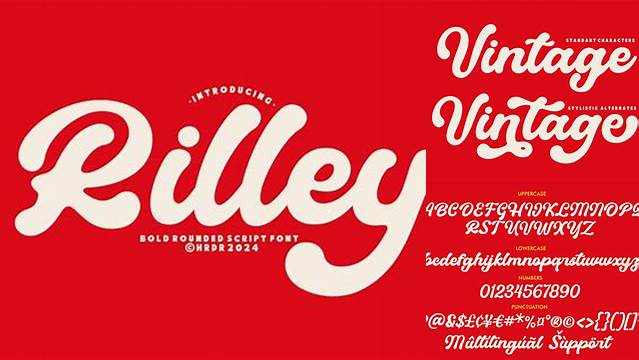
Hey guys! Are you on the hunt for a font that's both bold and friendly? Something that screams modern yet feels approachable? Well, buckle up because I'm about to introduce you to your next design obsession: Rilley, the rounded bold font that's taking the design world by storm – and the best part? It's free to download!
What Makes Rilley So Special?
In the vast ocean of fonts, Rilley manages to stand out, and for good reason. This isn't just another bold font; it's a carefully crafted typeface that blends strength with softness. The rounded terminals give it a warm, inviting feel, making it perfect for a wide range of projects. Let’s dive into what makes Rilley truly shine. When you’re choosing a font, especially a bold one, you need something that commands attention without being abrasive. Rilley nails this balance perfectly. The rounded edges soften the impact of the bold weight, creating a harmonious look that’s both eye-catching and easy on the eyes. Think about logos, headings, and even body text – Rilley can handle it all with grace. One of the key things designers look for is versatility, and Rilley delivers in spades. Whether you’re working on a sleek, modern website, a playful children’s book, or a professional marketing campaign, this font adapts beautifully. Its bold presence ensures your message gets across, while the rounded edges keep things friendly and approachable. It's like having a Swiss Army knife for your typography toolbox! Now, let’s talk about readability. What good is a bold font if it strains the reader's eyes? Rilley’s thoughtful design ensures excellent readability, even at smaller sizes. The letterforms are clear and distinct, making it a great choice for everything from website body text to print materials. This is a huge win, especially when you’re dealing with projects that require a lot of text. And did I mention it's free? Finding a high-quality, versatile font that doesn’t break the bank is like finding a unicorn. Rilley offers professional-grade aesthetics without the hefty price tag, making it an invaluable resource for designers of all levels. Whether you’re a seasoned pro or just starting out, having access to a font like Rilley can make a world of difference in your projects.
Key Features of Rilley
- Rounded Terminals: The soft, rounded edges give Rilley a friendly and approachable feel.
- Bold Weight: Its strong presence makes it perfect for headlines, logos, and branding materials.
- Versatile Design: Suitable for a wide range of projects, from web design to print.
- Excellent Readability: Clear letterforms ensure readability at various sizes.
Where Can You Use Rilley?
The possibilities are endless! Seriously, guys, this font is a chameleon. Here are just a few ideas to get your creative juices flowing. Think about branding – a bold font like Rilley is perfect for creating a strong, memorable logo. The rounded edges add a touch of warmth, making your brand feel more approachable. Imagine seeing Rilley on a coffee shop sign or a tech startup’s website – it just works! For website design, Rilley is a dream come true. Use it for headings to grab attention or as body text for a clean, modern look. Its excellent readability ensures your message is clear and engaging. Plus, the bold weight makes navigation elements pop, guiding users through your site effortlessly. If you’re into print design, Rilley won’t disappoint. From posters and flyers to brochures and business cards, this font adds a touch of sophistication to any project. The rounded terminals make it feel less formal, perfect for designs that need a friendly, inviting vibe. Book covers are another fantastic application. A bold font on a book cover instantly draws the reader’s eye, and Rilley’s unique style sets your design apart from the crowd. Whether it’s a fiction novel or a non-fiction guide, Rilley can help you create a cover that’s both striking and readable. Let’s not forget social media graphics. In a world of endless scrolling, you need a font that stops people in their tracks. Rilley’s bold weight ensures your message gets noticed, while the rounded edges keep your posts looking fresh and modern. Use it for quotes, announcements, or promotional graphics – Rilley will make your content shine. And for those of you working on presentations, Rilley is a lifesaver. Use it for titles and headings to keep your slides organized and engaging. Its clean, readable design ensures your audience stays focused on your message, not struggling to decipher your text. The key takeaway here is versatility. Rilley isn’t just a one-trick pony; it’s a workhorse that can handle a wide variety of design tasks. Its unique blend of boldness and approachability makes it a valuable asset in any designer’s toolkit.
Examples of Rilley in Action
- Logos: Imagine a tech startup with a sleek, modern logo using Rilley. The bold weight conveys confidence, while the rounded edges add a touch of approachability.
- Websites: Picture a blog with Rilley headings, drawing readers in with their friendly yet impactful presence. The clear letterforms make the content easy to read and enjoy.
- Posters: Envision a concert poster with Rilley splashed across it, grabbing attention with its strong boldness and unique rounded style.
- Book Covers: Think of a fiction novel with a Rilley title, instantly conveying a sense of modernity and intrigue.
- Social Media Graphics: See a quote graphic with Rilley text, making the message pop and stand out in the busy social media landscape.
Tips for Using Rilley in Your Designs
So, you’ve got Rilley installed and you’re itching to use it. Awesome! Here are a few tips to help you make the most of this fantastic font. First off, think about contrast. While Rilley is bold and eye-catching, it works best when paired with a more understated font for body text. A clean sans-serif or a classic serif can create a beautiful balance, allowing Rilley to shine in headings and titles without overwhelming the design. When using Rilley for logos, consider the overall message you want to convey. The rounded edges give it a friendly, approachable feel, so it’s perfect for brands that want to come across as warm and inviting. However, the bold weight also lends a sense of confidence and strength, making it suitable for a wide range of industries. In web design, Rilley is a star for headings and navigation elements. Its readability ensures that users can easily find their way around your site, while its distinctive style adds a touch of personality. Just be mindful of load times – using too many bold fonts can sometimes slow things down, so optimize your font usage for the best performance. For print projects, Rilley is a versatile choice for everything from posters to brochures. Its clean lines and clear letterforms make it easy to read, even at smaller sizes. Experiment with different color combinations to see how Rilley interacts with your overall design palette. And finally, don’t be afraid to break the rules! Typography is an art, and the best designs often come from unexpected choices. Play around with different weights, sizes, and spacing to see what works best for your project. Rilley is a flexible font, so have fun and let your creativity run wild. Remember, the key to good typography is balance and clarity. Rilley is a powerful tool, but it’s just one element of your overall design. Use it thoughtfully, and it will elevate your work to the next level.
Quick Tips for Maximizing Rilley's Impact
- Pair with a Subtler Font: Use a clean sans-serif or classic serif for body text to create balance.
- Consider Your Brand Message: Rilley’s rounded edges make it friendly, while its bold weight adds confidence.
- Experiment with Colors: See how Rilley interacts with your overall design palette.
- Break the Rules: Don’t be afraid to play around with different weights, sizes, and spacing.
Conclusion: Why Rilley Should Be Your Go-To Bold Font
So, there you have it! Rilley, the rounded bold font that’s free to download and incredibly versatile. If you’re looking for a typeface that combines strength with friendliness, modernity with approachability, Rilley is your answer. Its unique design makes it perfect for logos, websites, print materials, and so much more. And with its excellent readability, you can be sure your message will always come across loud and clear. Whether you’re a seasoned designer or just starting out, Rilley is a valuable addition to your font library. Its bold presence and rounded edges make it a standout choice for any project, and the fact that it’s free means you can experiment without breaking the bank. So, what are you waiting for? Go download Rilley today and start creating some amazing designs! Trust me, guys, you won’t be disappointed. This font is a game-changer, and I can’t wait to see what you create with it. Happy designing!
Final Thoughts on Rilley
- Versatile: Perfect for a wide range of projects, from logos to websites.
- Readable: Clear letterforms ensure your message gets across.
- Modern: Rounded edges and bold weight create a contemporary look.
- Essential: A must-have font for any designer’s toolkit.